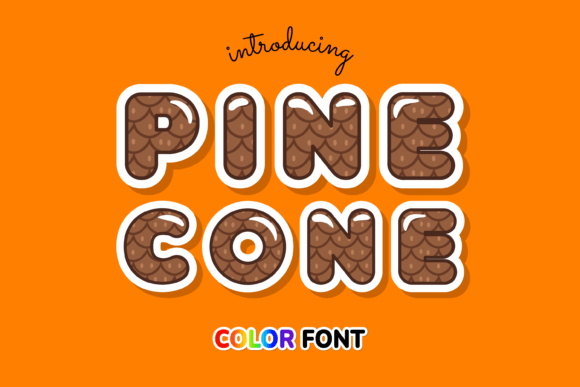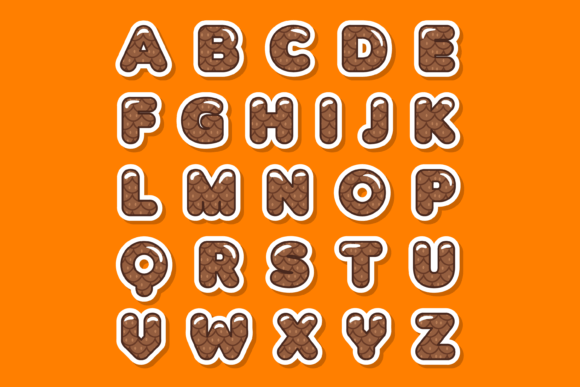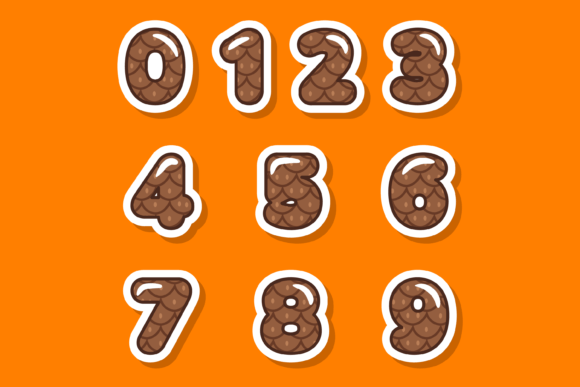
Pinecone Font
About Pinecone Font
Pinecone is a delightful color font that captures the essence of winter and Christmas with its charming design. Whether you’re working on custom designs, DIY crafts, or any project that needs a touch of seasonal magic, this font is an excellent choice.
With its intricate details and festive colors, Pinecone adds a playful and joyful vibe to your creations. The font’s unique design resembles the texture and shape of a pinecone, making it a perfect fit for winter-themed projects, holiday cards, invitations, and more.
The versatility of Pinecone allows you to use it in various creative applications. Whether you’re designing a winter-themed poster, creating custom gift tags, or adding a festive touch to your social media posts, this font will bring a lovely and enchanting feel to your work.
The warm and inviting colors of Pinecone evoke the coziness and cheerfulness of the holiday season. Its carefully crafted details and color variations make each letter a work of art, ensuring that your designs stand out and capture the spirit of winter.
Embrace the magic of the holiday season with Pinecone. Let this cool color font be your go-to choice for creating stunning winter-themed designs that bring joy and cheer to those who see them. Whether you’re a professional designer or simply a creative enthusiast, Pinecone is an amazing font that will add a touch of enchantment to your projects.